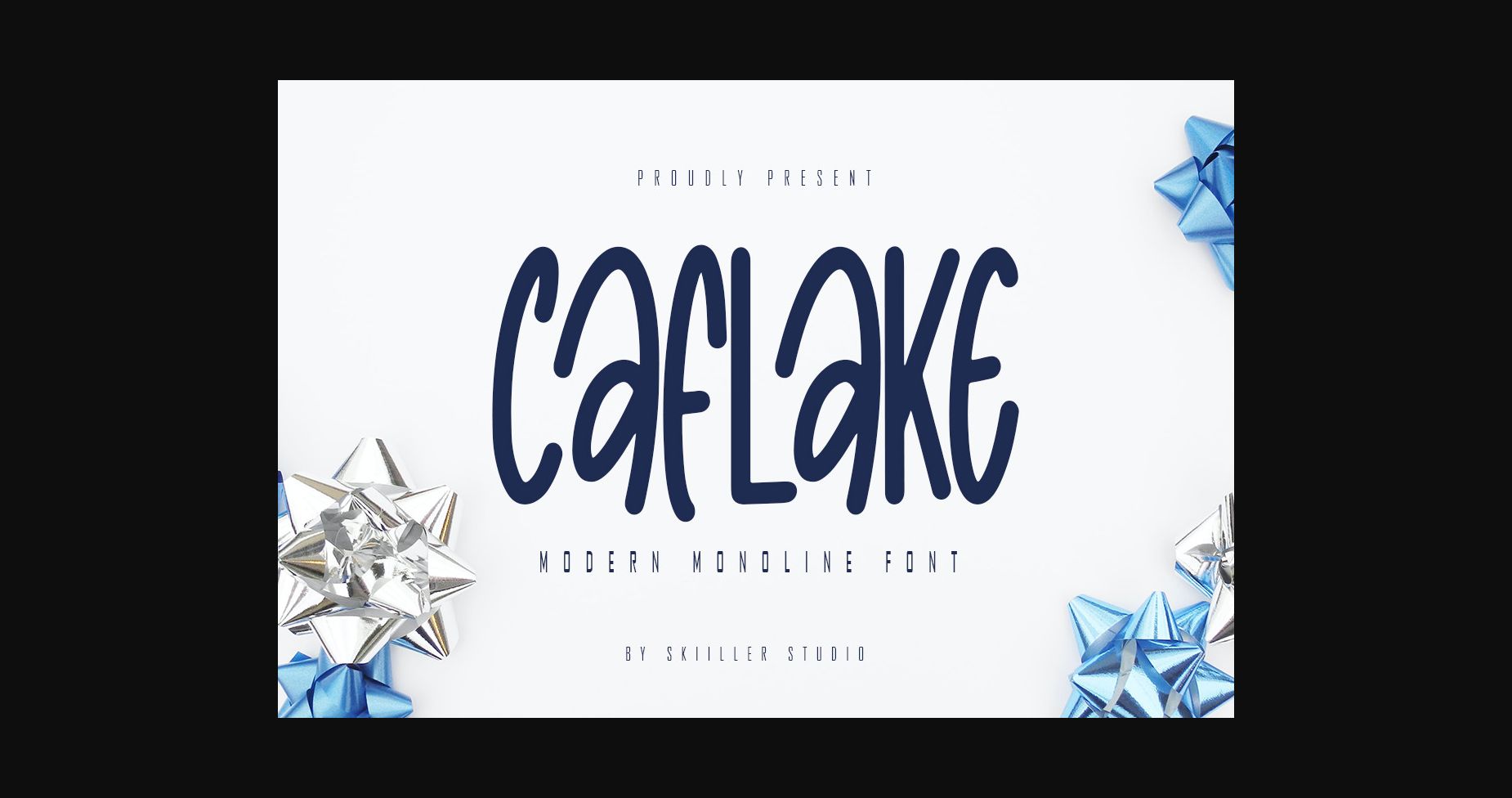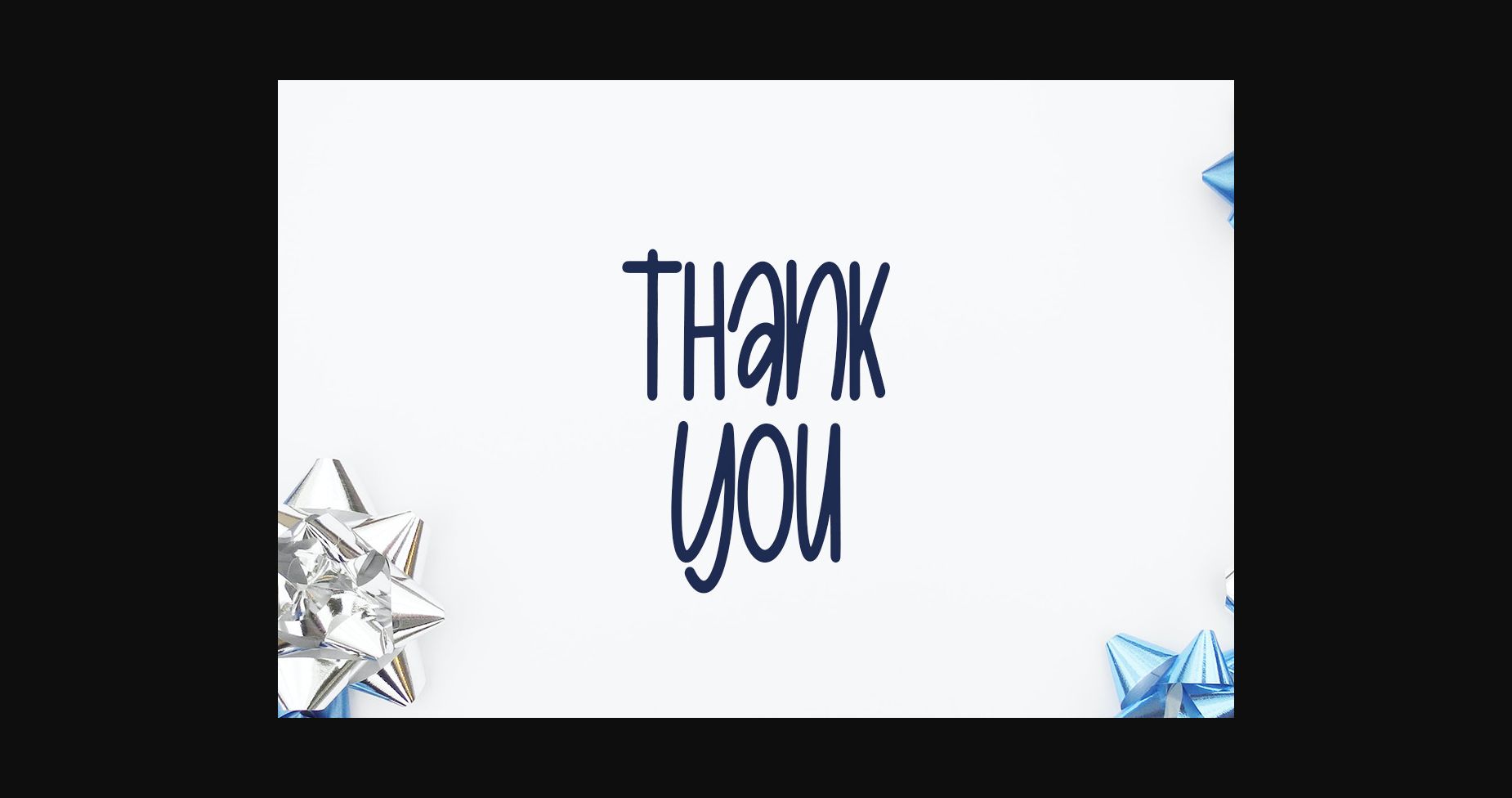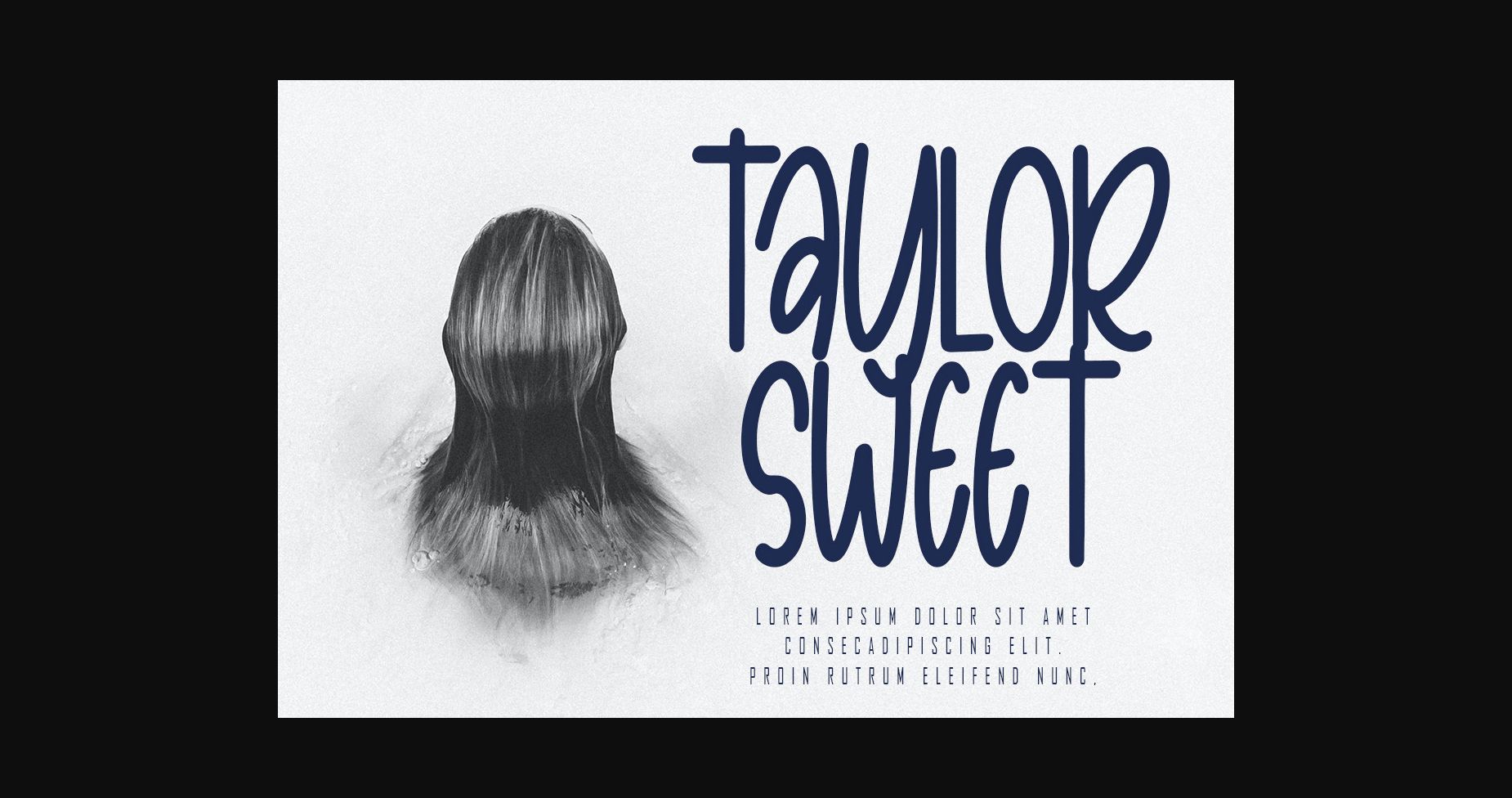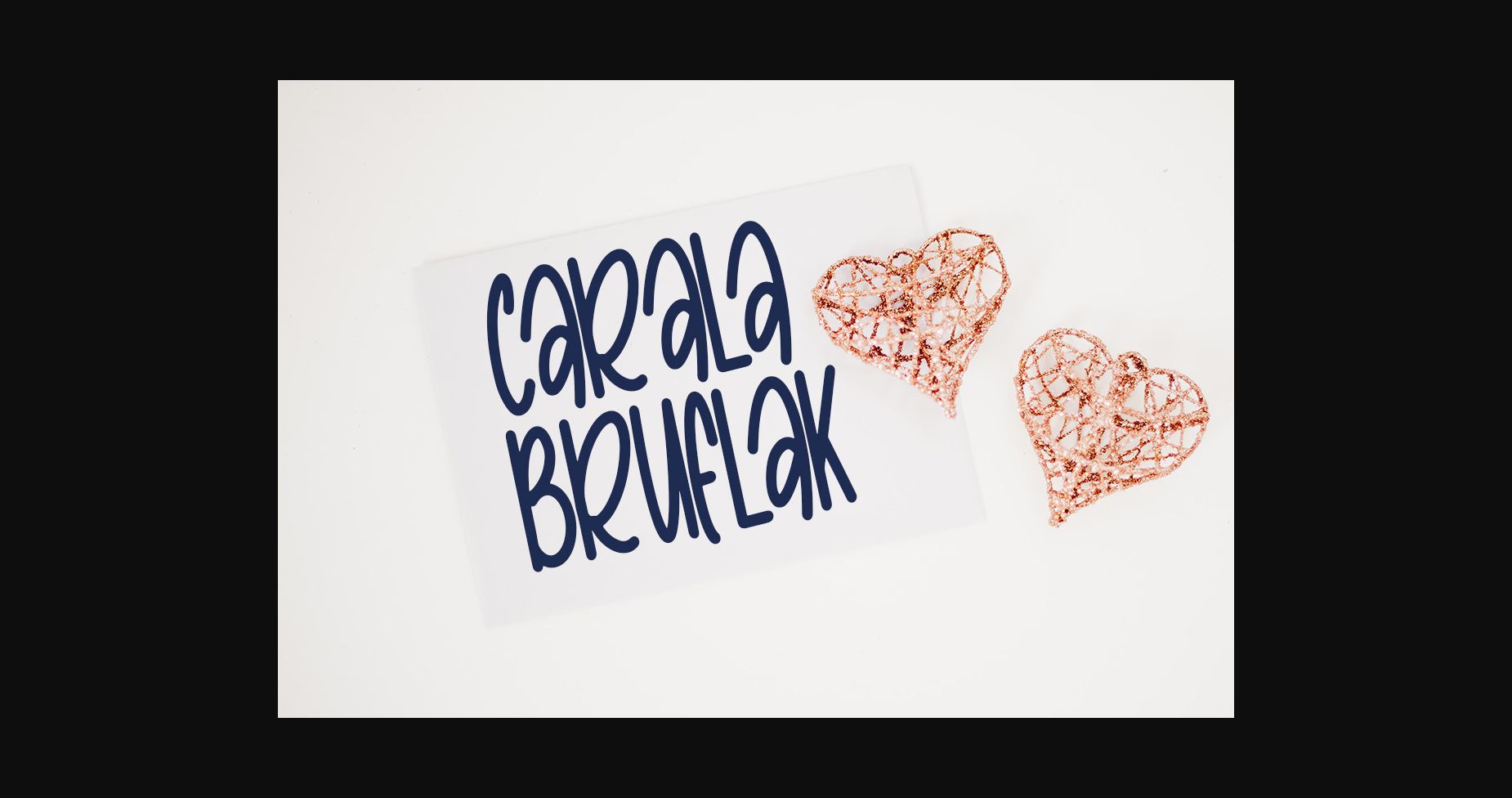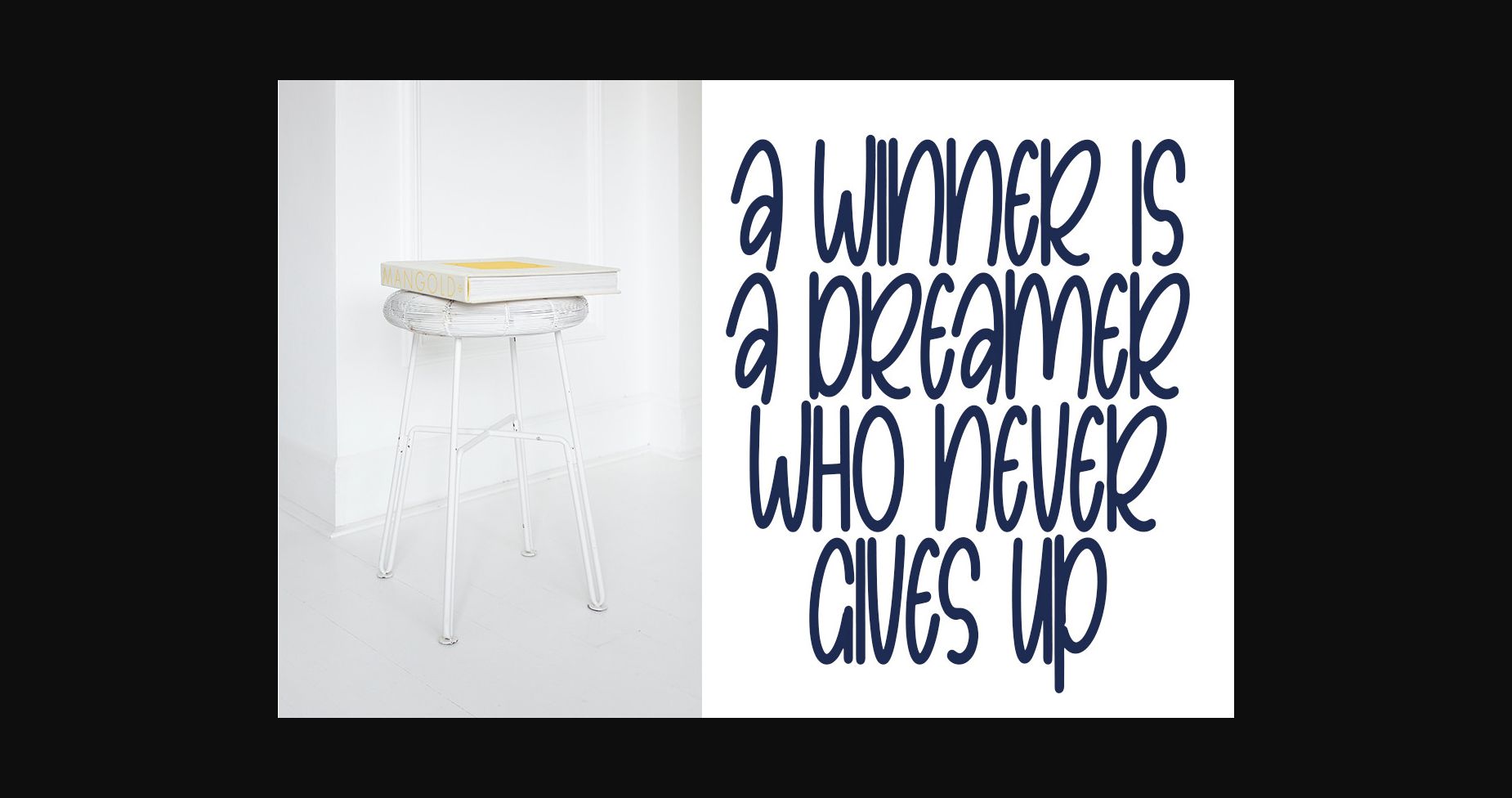
About Caflake Font
Caflake is a monoline sans serif font, crafted to give your headlines and logotype projects a stylish touch. This font reads as strong, confident, and dynamic and can add tons of urban character to your designs.